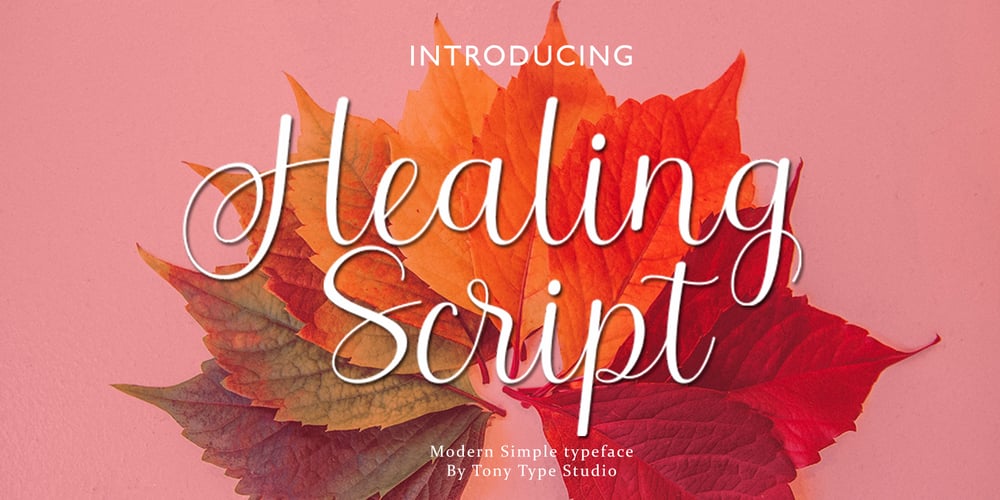
Healing Script
Healing Script font
Healing Script Font Family was designed by Toni Irfandi and published by Tony Type Studio. Healing Script contains 1 styles and family package options. Introducing the new lovely Healing Script. It’s authentically handlettered font with full alternates (upper and lowercase). Designed to work perfectly in multiple designs like wedding invitations, website logos, Instagram posts and many many more.